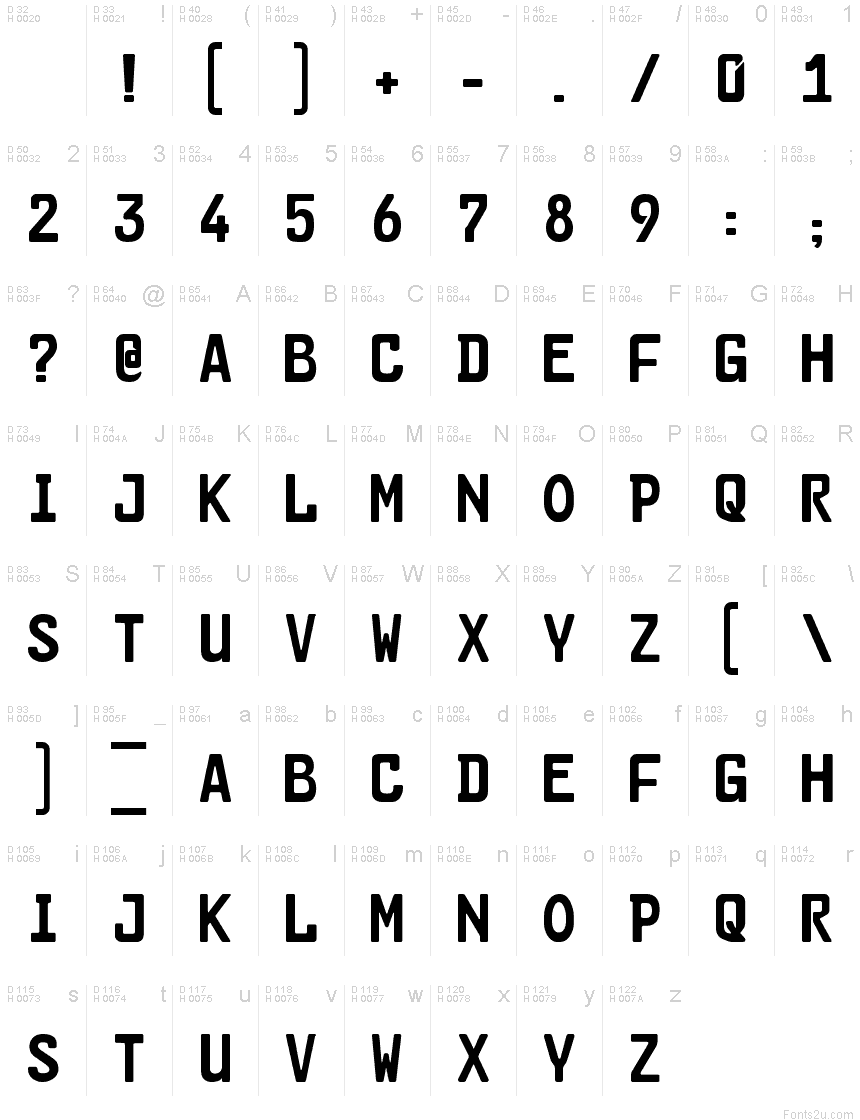
Cargo Two SF
Cargo Two SF font by Anke Arnold is a free condensed rounded sans serif typeface. Its tall, narrow forms and thick inky strokes feel like stenciled cargo markings that have been softened at the edges, giving headlines a punchy, industrial warmth. The tight rhythm pulls words into bold, compact blocks of black, great when space is tight but attitude matters.
Using Cargo Two SF font, titles and logos snap into focus on posters, packaging, storefront signage, social media graphics, and event or album covers. This free font shines at large sizes; pair it with a quiet, open sans for body copy to keep layouts readable and balanced.